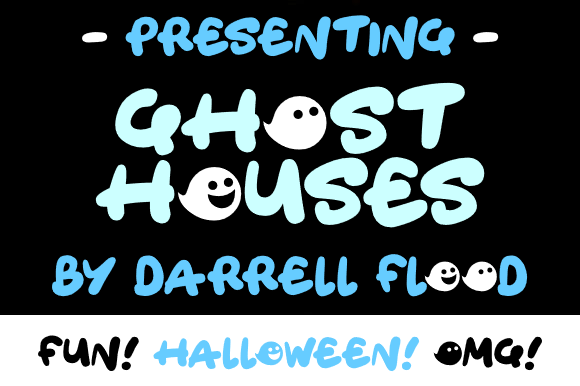
Spooky Typographic Delights: Unveiling the Magic of Ghost Houses Font
Who among us hasn’t experienced that moment of creative epiphany, where a single font or design element sparks an entire project to life? For many designers, it’s the perfect storm of inspiration and practicality that sets the creative juices flowing. And for those who love all things spooky and seasonal, there’s one font that’s sure to cast a spell: Ghost Houses Font.
This super cute hand-drawn font is the perfect accompaniment to any Halloween-themed project, from invitations and social media graphics to websites and print materials. Its playful, whimsical design makes it an instant hit with designers and non-designers alike. But what truly sets Ghost Houses Font apart is its versatility – it’s perfect for everything from family-friendly fun to more eerie, ghostly encounters.
Whether you’re a seasoned designer or just starting out, Ghost Houses Font is a valuable addition to your toolkit. Its unique style and versatility make it an instant go-to for any project that needs a touch of spooky charm.
Key Features of “Ghost Houses Font”
- Unique Characteristics: The font features a unique, hand-drawn aesthetic with subtle imperfections, giving it a charming and human touch.
- Font Style: The font has a calligraphic feel with rounded edges, making it suitable for titles, headings, and other display text.
Ghost Houses Font Review
At first glance, Ghost Houses Font has a certain charm to it. The ✨ organic and whimsical feel of the font makes it perfect for creating a unique and eye-catching design. The font’s irregular shapes and uneven lines give it a handmade, artisanal feel that’s perfect for artistic or creative projects.
One of the standout features of Ghost Houses Font is its ✨ versatility. It can be used for a wide range of projects, from invitations and greeting cards to branding and packaging. The font’s ✨ expressive quality makes it perfect for conveying a sense of personality and style.
- ⚠️ Limited legibility: Due to the font’s organic and irregular shape, it can be difficult to read in certain contexts.
- ⚠️ Limited font sizes: The font’s design works best in smaller font sizes, as larger sizes can make the font look cluttered and overwhelming.
Overall, Ghost Houses Font is a great choice for designers looking to add a unique and creative touch to their projects. However, it may not be the best choice for projects that require high legibility or a clean, modern aesthetic.
Tips for Getting the Most Out of Ghost Houses Font
For the best results, use Ghost Houses Font for titles, headings, and emphasis. It pairs well with sans-serif fonts like Open Sans or Lato.
Experiment with different font sizes and colors to create visual interest and hierarchy in your design.
Ghost Houses Font is perfect for:
- Brand logos and identity design
- Event promotions and advertising
Alternatives to Ghost Houses Font for Designers
1. Rock Salt Font
The Rock Salt Font is a distressed, vintage-inspired font perfect for creating a nostalgic or retro aesthetic. It’s ideal for use in designs that require a touch of history, such as posters, invitations, and branding materials. Rock Salt Font is more distressed than Ghost Houses Font, with a rougher texture and more pronounced imperfections.
The Great Vibes Font is a modern, handwritten script font that conveys a sense of elegance and sophistication. It’s suitable for use in designs that require a touch of luxury, such as wedding invitations, luxury branding, and high-end advertising materials. Great Vibes Font is more refined and polished than Ghost Houses Font, with a smoother texture and more precise letterforms.